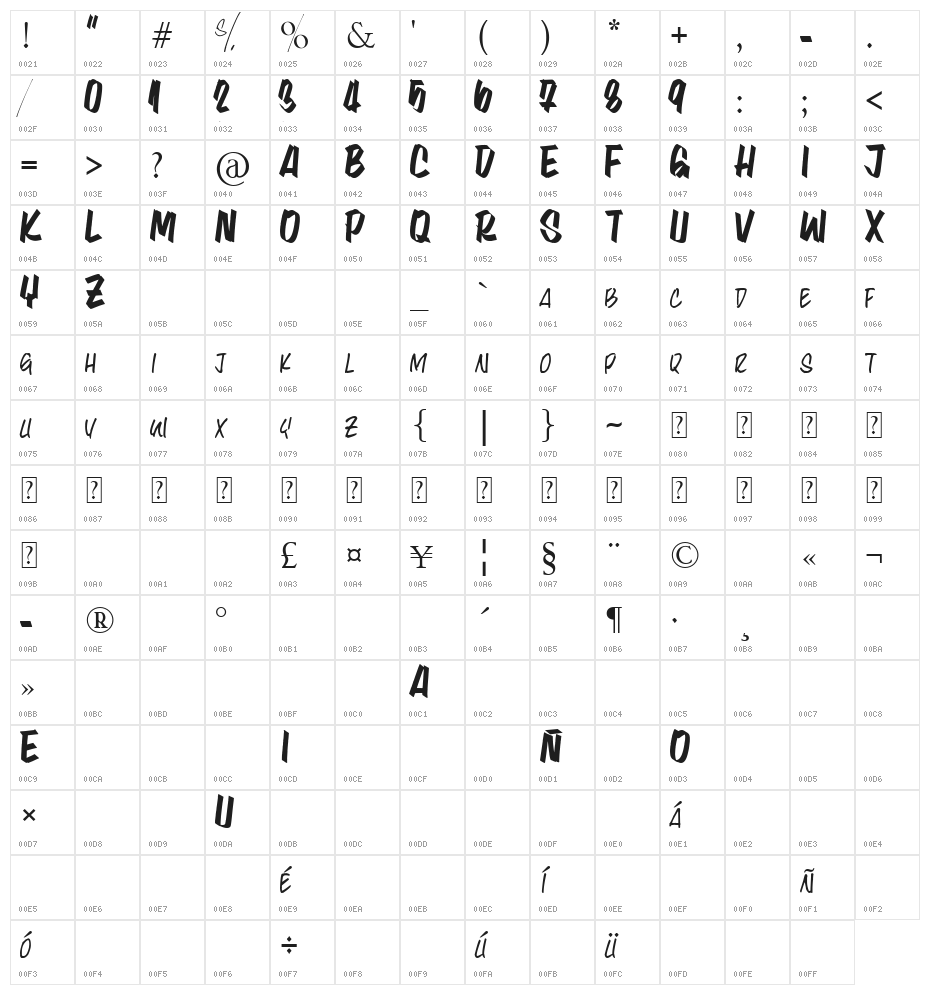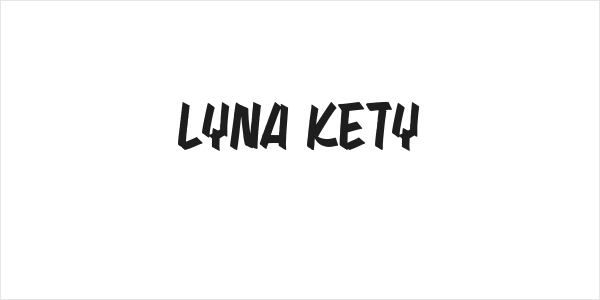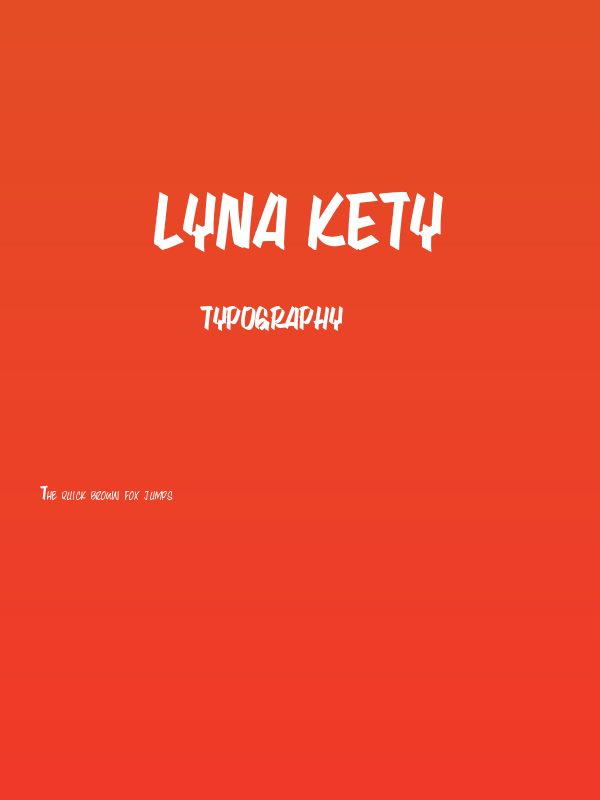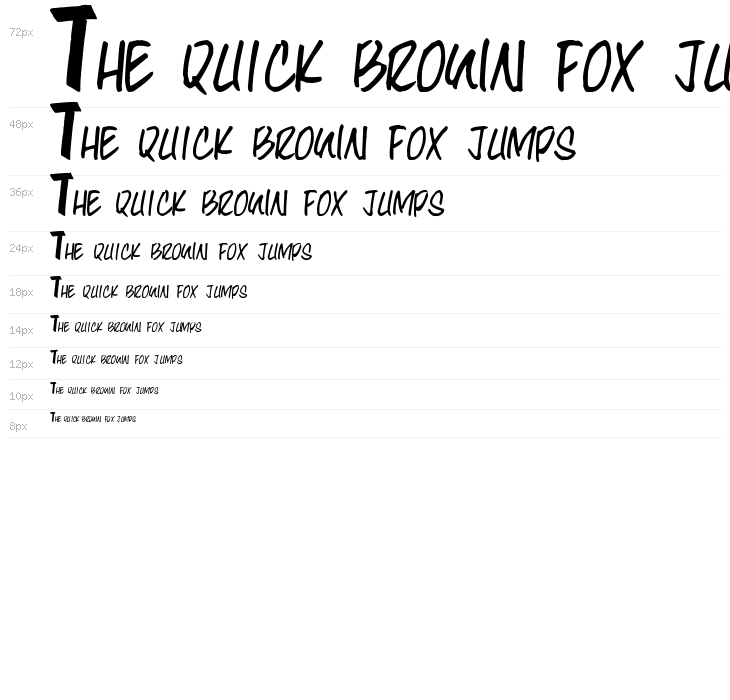
LYNA KETY Font
LYNA KETY Description
This font features a bold and dynamic style with a strong presence. The uppercase letters are characterized by sharp angles and thick strokes, giving them a powerful and energetic appearance. The lowercase letters maintain a similar style but with a slightly more fluid and connected form, adding a touch of casual elegance. The numerals are bold and consistent with the overall aesthetic, ensuring readability and impact. Special characters are crafted with the same attention to detail, making them suitable for various design needs. This font is ideal for projects that require a bold statement and a modern, edgy look.
| Proposed Projects | Ideal for branding, posters, headlines, and any project needing a strong visual impact. |